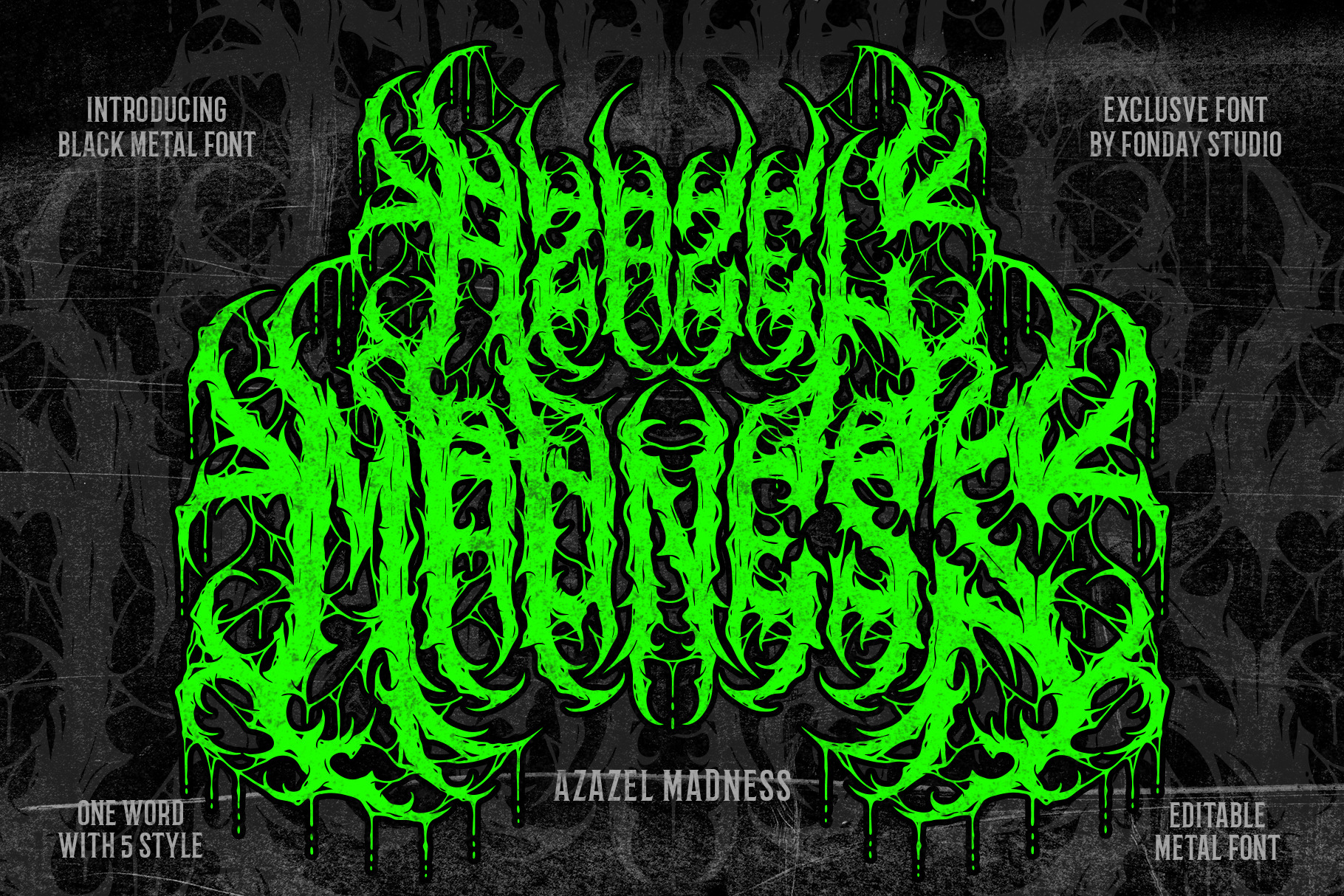
Azazel Madness Death Metal Font
🤘 Introducing Azazel Madness Death Metal Font: Unleash Unprecedented Darkness in Your Designs! 🤘
Step into the abyss with the meticulously crafted “Azazel Madness Death Metal Font.” This isn’t just a font; it’s a symphony of detailed design, unparalleled quality, and exclusivity.
🔥 Precision at Its Apex: Every stroke in Azazel Madness is a testament to the raw energy and sharpness demanded by the metal genre, setting new standards for high-quality design.
🤘 A Myriad of Alternates: Dive into a vast collection of alternate characters that allow you to infuse your designs with a unique and menacing edge, capturing the essence of true madness.
✏️ Effortless Customization: Azazel Madness makes design modification a breeze. From posters and logos to t-shirt brands and album covers, craft your vision effortlessly.
🖤 Versatile Across All Metal Themes: Whether it’s death metal, black metal, or any other subgenre, Azazel Madness seamlessly adapts to every metal theme, elevating your designs with an unparalleled darkness.
🔒 An Exclusive Design Experience: This font isn’t just a tool; it’s your exclusive key to unlocking a realm of creativity drenched in madness.
🔥 Forge Your Path in Darkness: Embrace the chaos and redefine your metal design aesthetic with Azazel Madness Death Metal Font.
- All Caps Character
- Stylistic Alternate